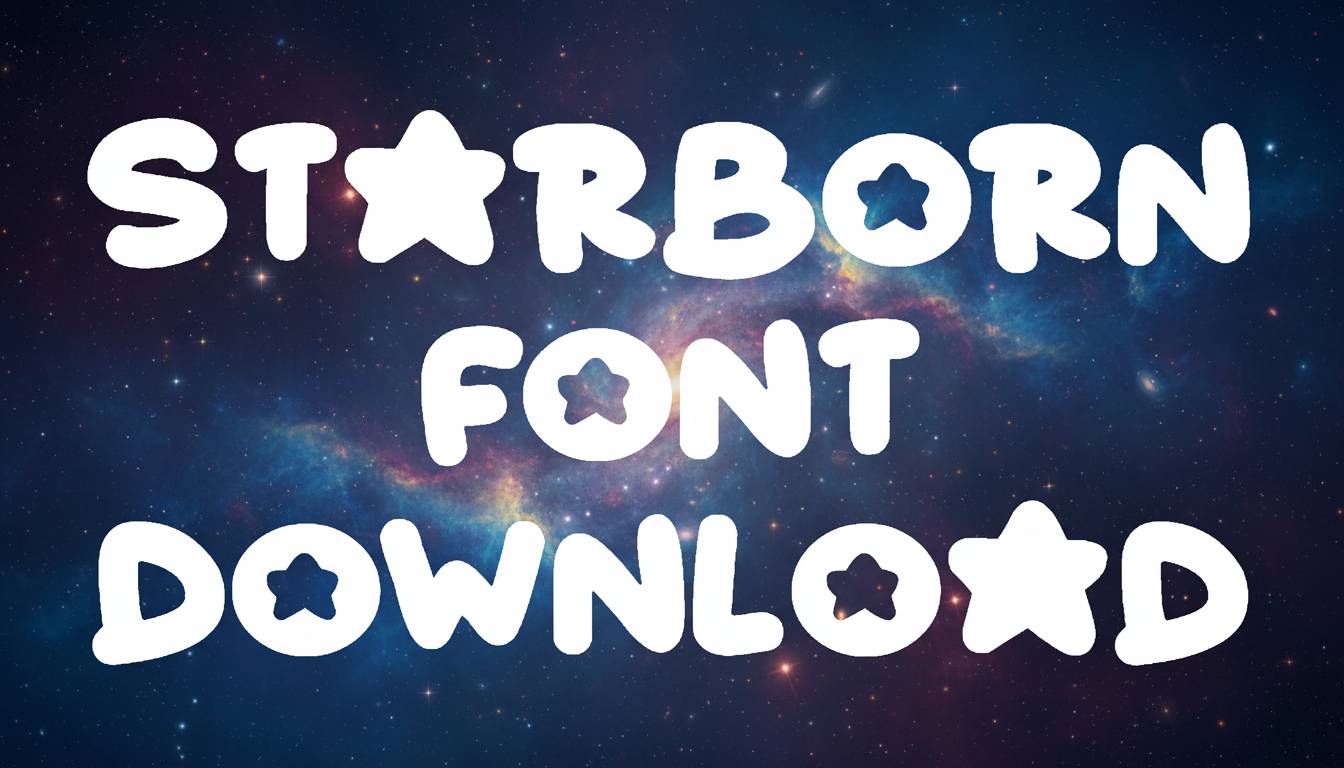
Starborn is a highly popular, bubbly, and playful cartoon display typeface designed by Darrell Flood (published under the alias Hawtpixel / Dadiomouse). It features thick, rounded, friendly letterforms with a slightly shiny aesthetic, making it an excellent choice for lighthearted visual layouts.
StarBorn
StarBorn is a fancy font (2018).